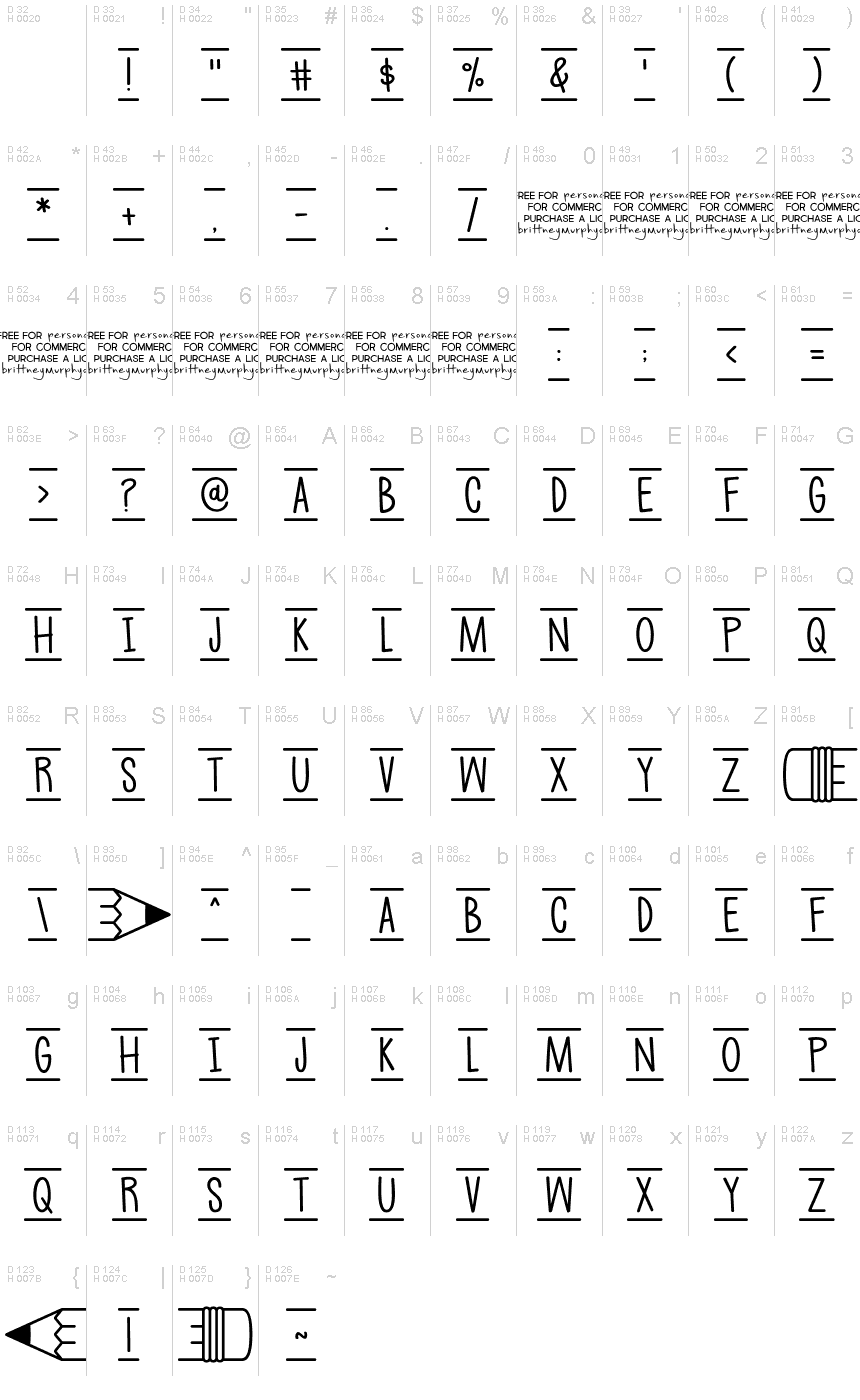
[Pencilized]
Pencilized is a decorative display font designed by Brittney Murphy Design. Its semi-light weight and playful style give it a unique handwritten feel, making it perfect for projects that require a touch of whimsy. With its bold strokes and fun flair, Pencilized is an ideal choice for children's books, greeting cards, and invitations. It's also great for web design and branding projects that aim to create a friendly, approachable look and feel. This versatile font can be used in both print and digital media to add a touch of personality to any project.
Directions for use!
Use brackets [] or curly brackets {} to add the beginning and end of the pencil.
Use the underscore _ to add spaces between words on the pencil.